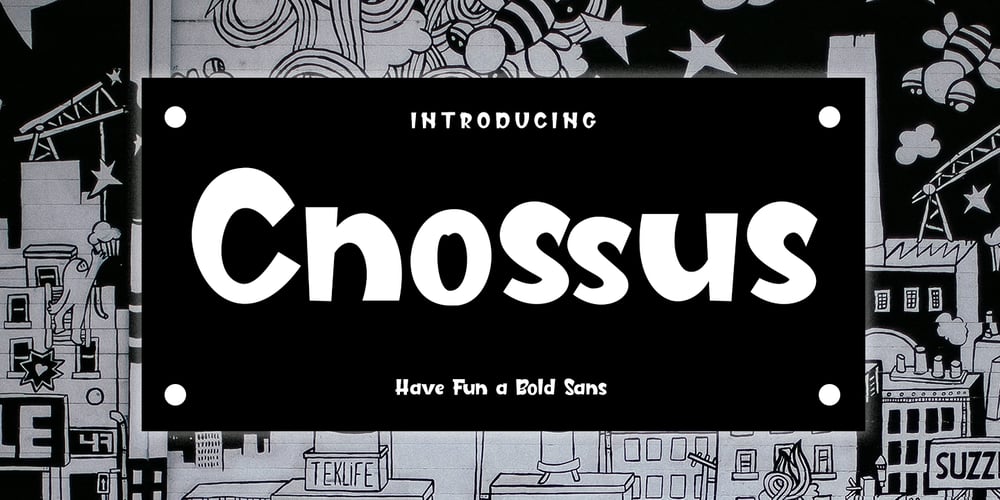
Cnossus Font Family was designed by Sarwo Edhi Prayitno and published by Haksen. Cnossus contains 2 styles and family package options. Say Hello to “Cnossus” Bold Funny Fonts! Cnossus was built with OpenType features, numbers, punctuation, ligatures and it also supports other languages. Cnossus is very suited to build your brand such as : T-shirt, Logo, Poster, Packaging, Advertising and anything. Installing Your New Font: This font can be installed in all software that can read standard fonts. Accessing the swashes / opentype features / glyphs: In order to access the alternate characters in this font, you need a program that supports OpenType features such as Adobe Indesign, Adobe Illustrator CS, or Adobe Photoshop CC.